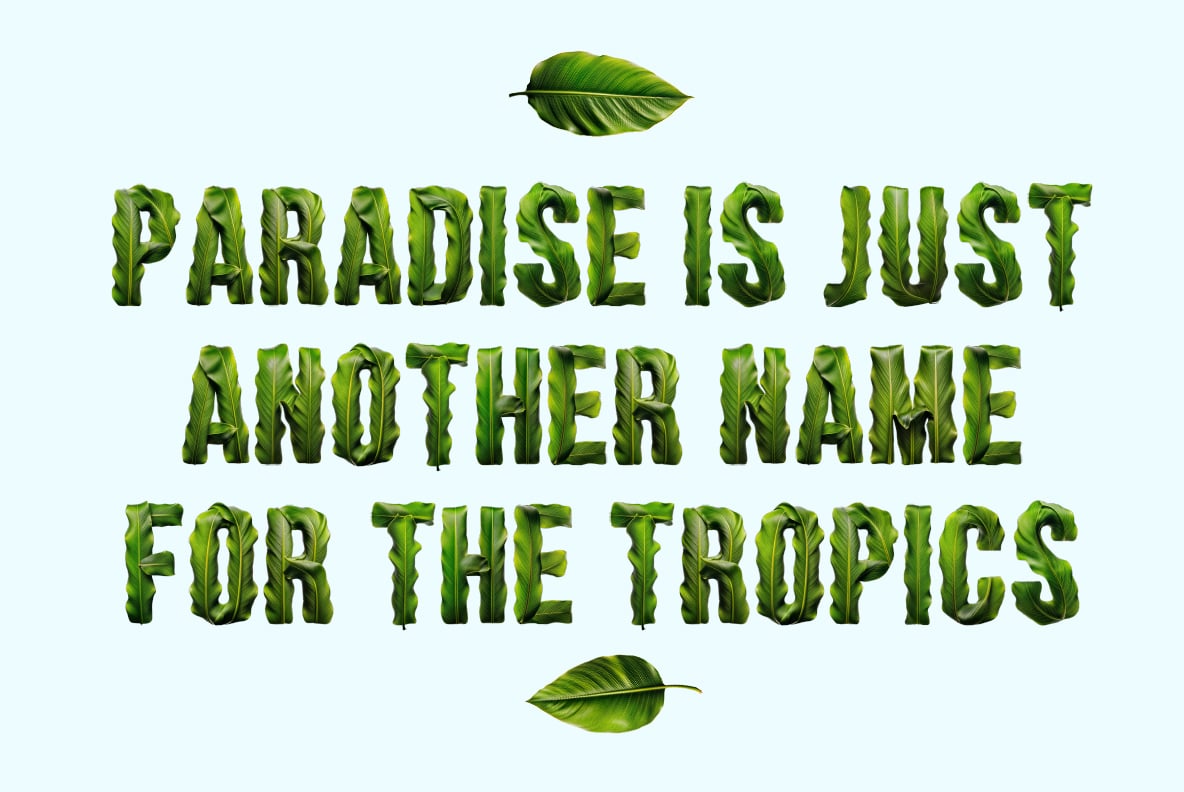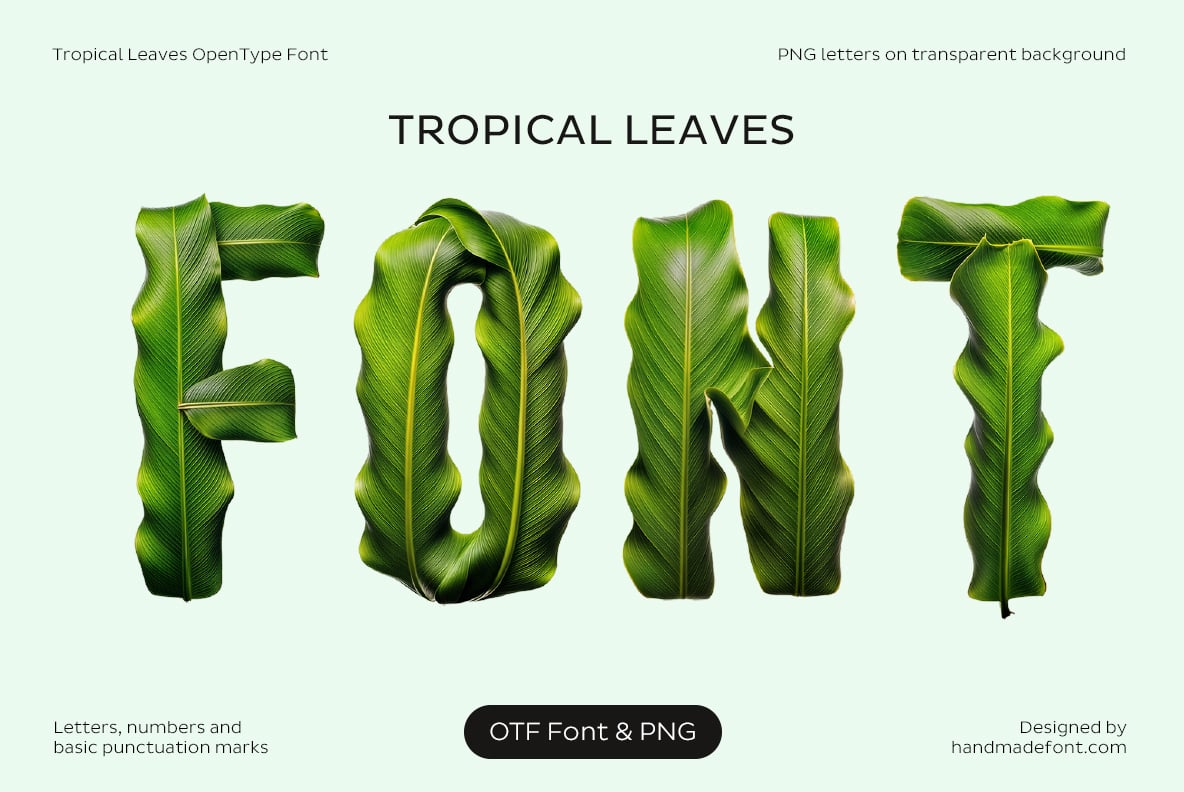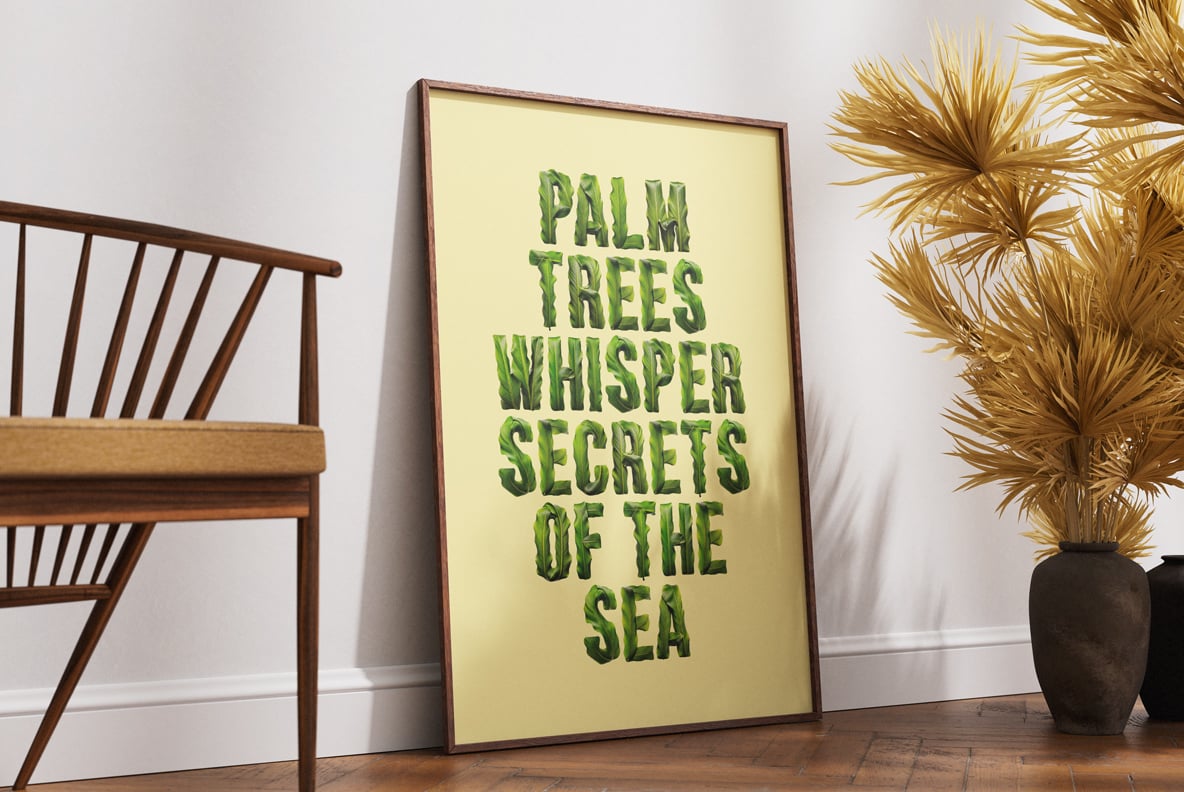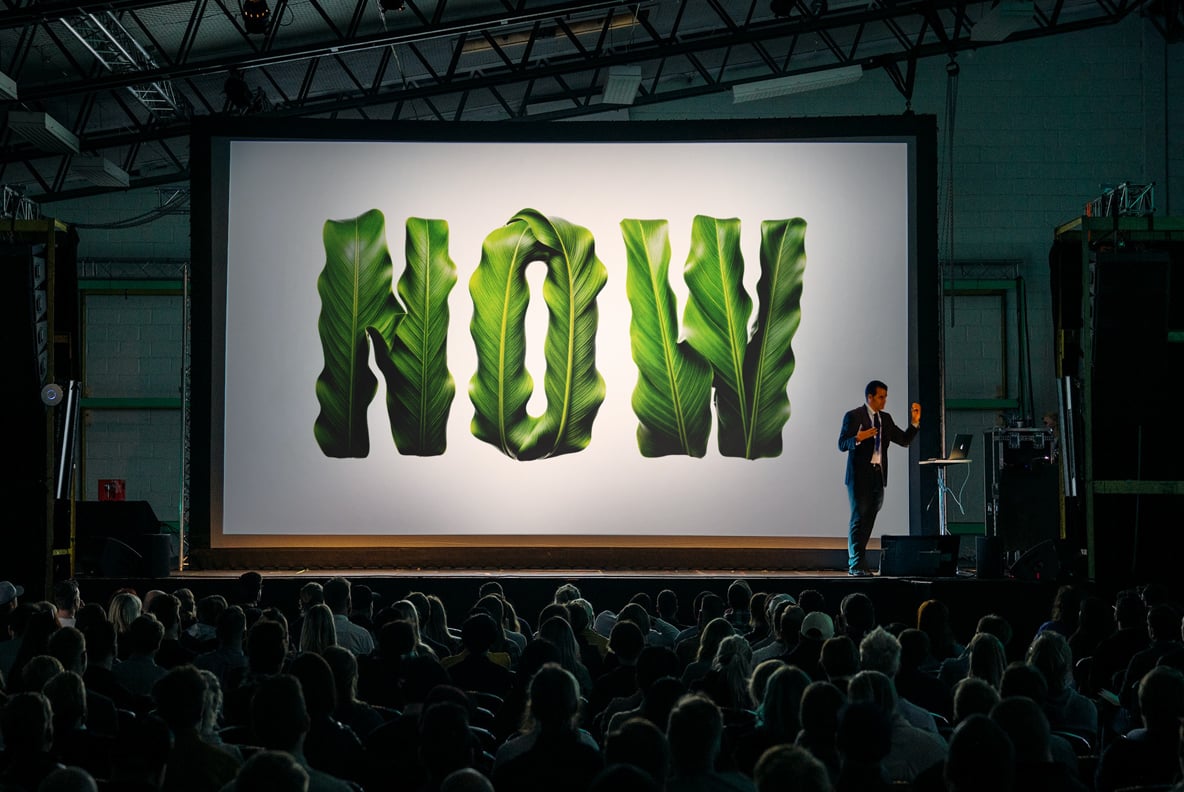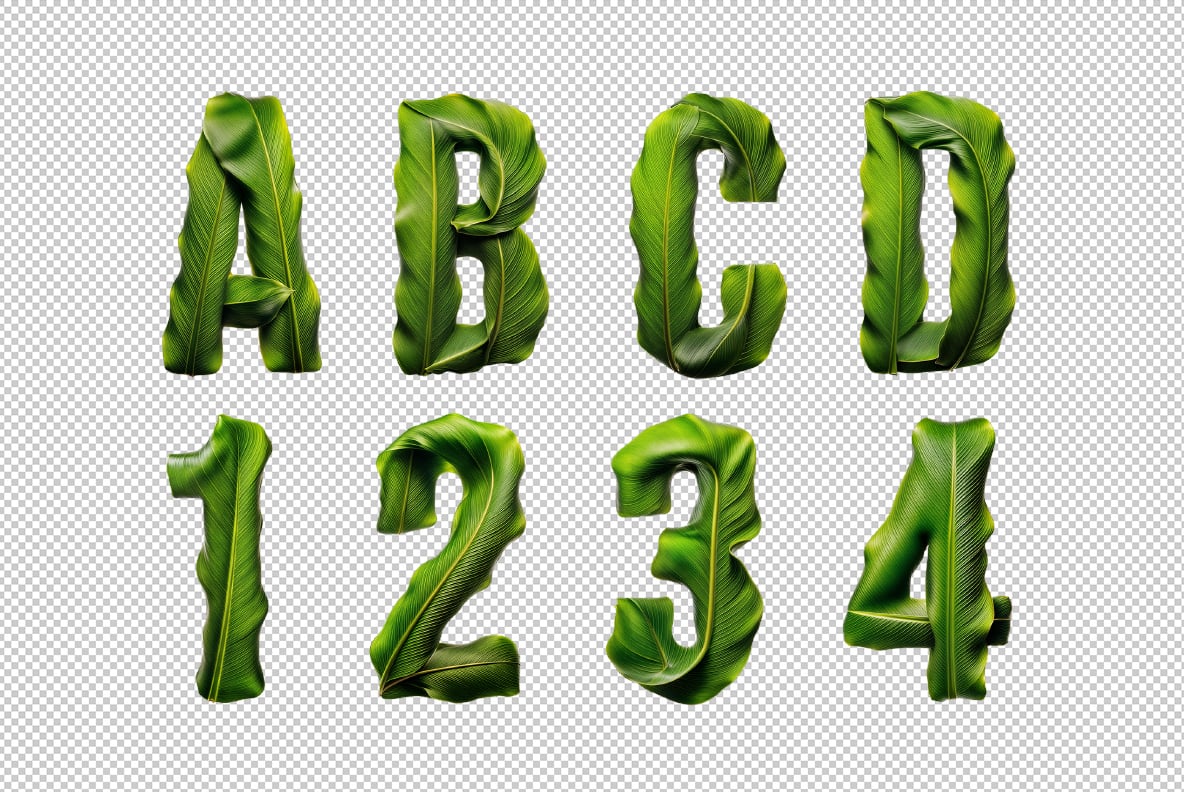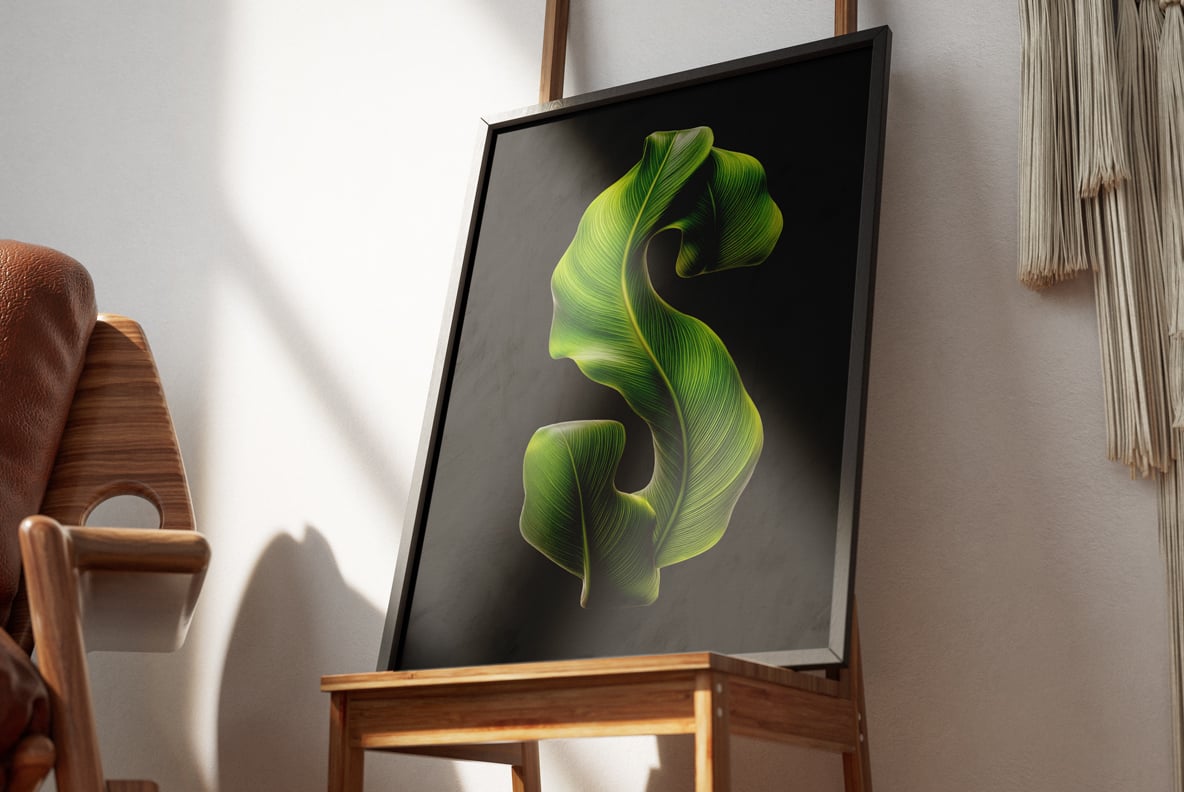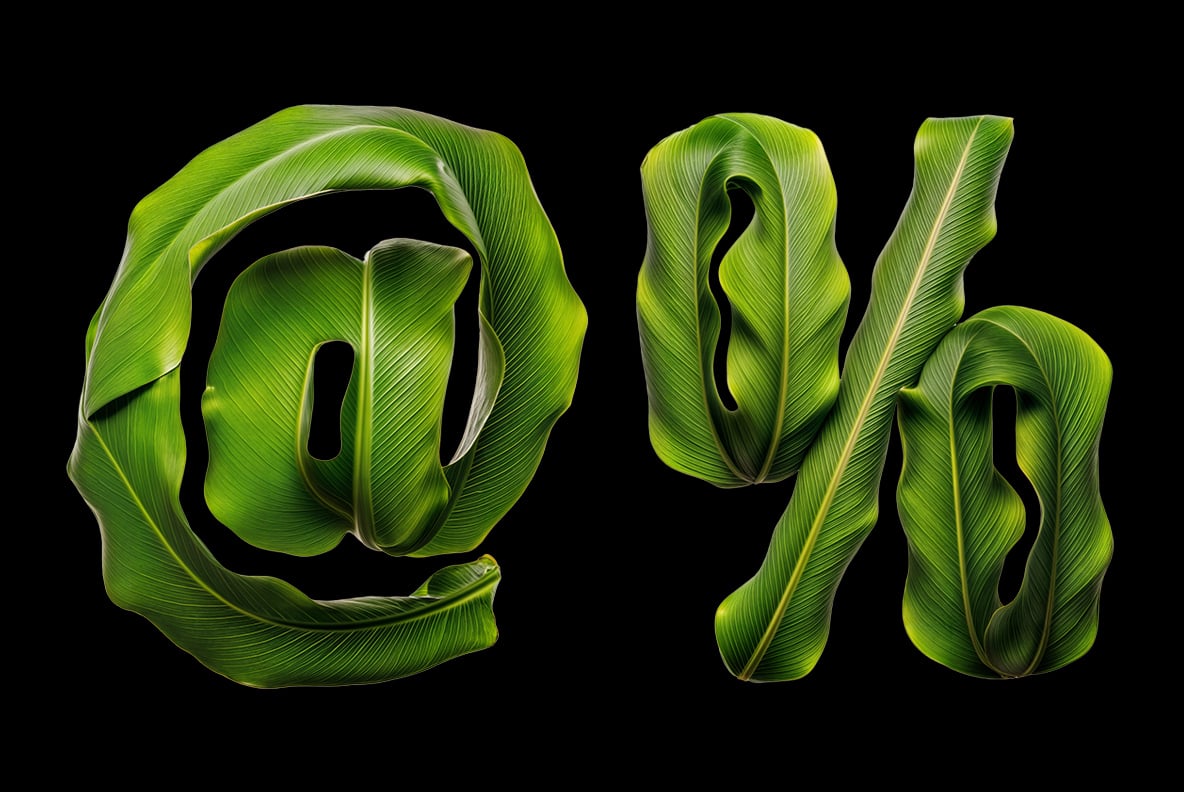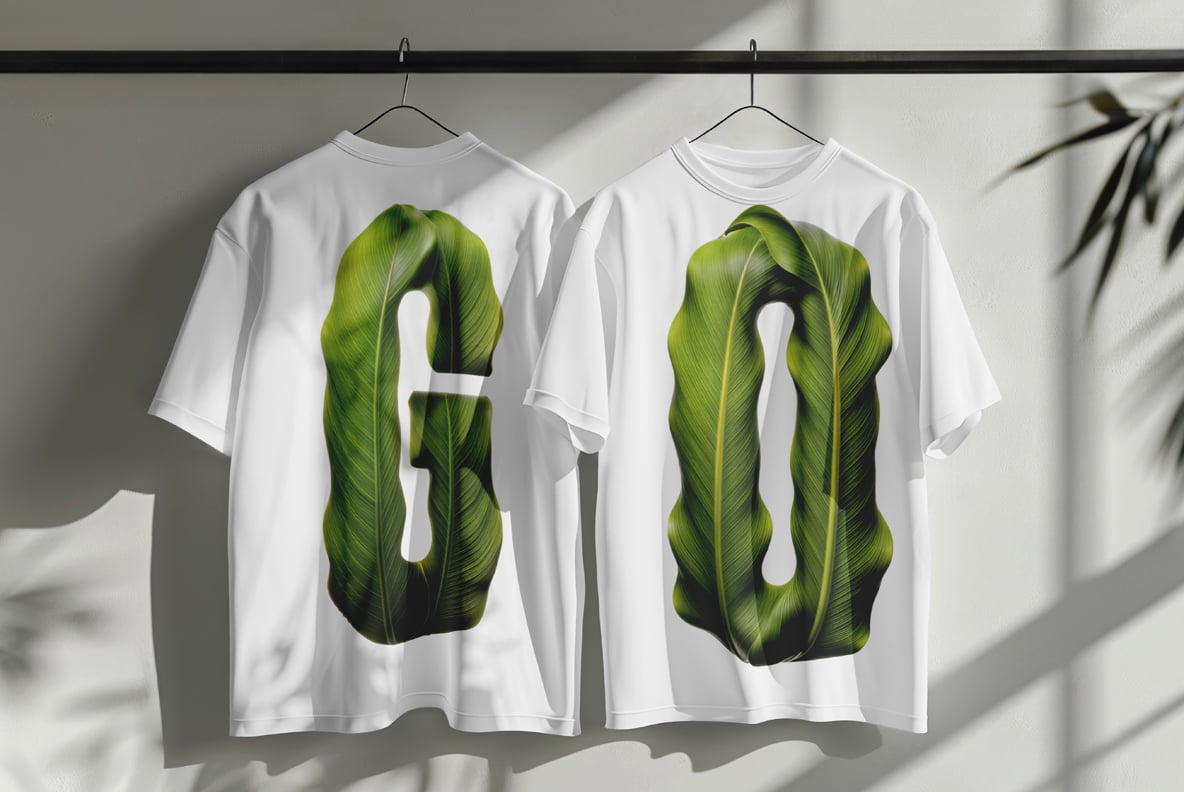
Tropical Leaves Font
Green, gorgeous, and gloriously wild—Tropical Leaves Font is what happens when the jungle decides to spell things out for you! Each letter is a masterpiece of lush foliage, crafted from vibrant palm, banana, and monstera leaves, whispering secrets of the rainforest. This tropical typography is more than just a font—it's a vacation for your words, a botanical paradise where every letter sways with exotic energy. Perfect for nature lovers, eco-warriors, and anyone who dreams in shades of green, this tropical-inspired font turns text into a tropical escape. Say aloha to typography that grows on you—literally!